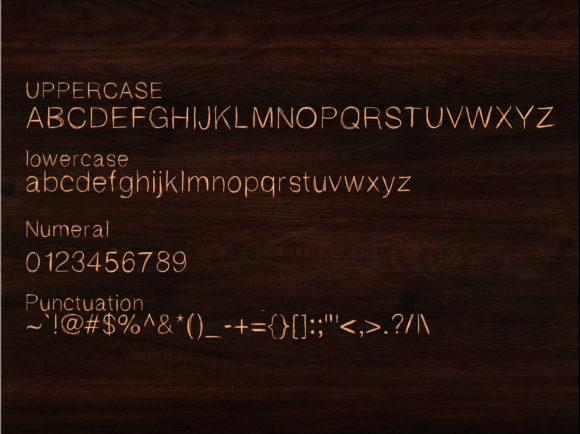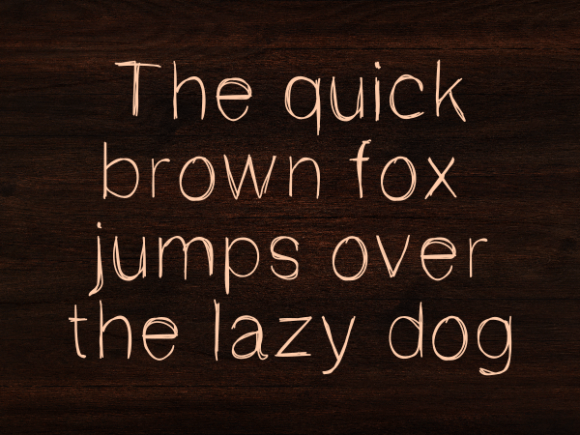
Introduction to Single Twig Font
Have you ever been working on a creative project, staring at a blank page or screen, and suddenly, the perfect font pops into your head? For designers, finding that elusive font can be a game-changer. It’s the difference between a design that’s just okay and one that truly stands out. One such font that has captured the hearts of many designers is the Single Twig Font. This beautiful handwriting-inspired font adds a personal touch to any design, making it perfect for invitations, greeting cards, posters, branding, and social media.
As a valuable design resource, the Single Twig Font offers high-quality results that are sure to elevate any project. Its unique, handwritten style is versatile enough to work with a wide range of designs, from casual to formal. Plus, with a transparent background, you can easily overlay it on any image or background, giving you complete creative control.
Best of all, the Single Twig Font is available for free download, making it an accessible addition to any designer’s toolkit. Whether you’re working on a large branding project or a small social media graphic, this font is sure to be a valuable asset. So why not give it a try and see how the Single Twig Font can help take your designs to the next level?
Key Features of Single Twig Font
- High-quality design resource for creative projects, perfect for adding a natural touch.
- Unique, hand-drawn design with a transparent background, ideal for use on various backgrounds and designs.
- Includes multiple font weights and styles, allowing for versatility in design applications.
- Designed to be highly legible and readable, even at small sizes, making it perfect for body text or headings.
Honest Review: Single Twig Font
I recently stumbled upon the Single Twig Font, and I must say it’s a lovely addition to any creative project. The design is clean, and the font is quite unique.
- What works well: ✨ The Single Twig Font is free to download, which is a huge plus for designers on a budget. The transparent background allows for easy layering, making it a great design resource. The font’s high quality is evident in its crisp lines and smooth curves.
- What works well: ✨ The Single Twig Font is highly versatile, making it suitable for a wide range of creative projects, from branding to publishing.
While the Single Twig Font is an excellent addition to any design arsenal, there are some limitations to consider. ⚠️ The font’s uniqueness can sometimes make it difficult to read, especially in smaller sizes. Additionally, the font’s creative style may not be suitable for more conservative or traditional design projects.
Overall, I’m quite impressed with the Single Twig Font. Its high quality, unique design, and free download make it a valuable design resource for any creative project. While it may not be suitable for every project, it’s certainly worth adding to your design library.
Tips for Getting the Most Out of Single Twig Font
For optimal results, use Single Twig Font in combination with other high-quality design resources. Experiment with different font sizes, colors, and arrangements to create a visually appealing design. You can also use the transparent background to create a sense of depth and layering.
Single Twig Font is ideal for use in creative projects such as logos, brochures, and social media graphics. Its unique design and high-quality make it a valuable design resource for free download.